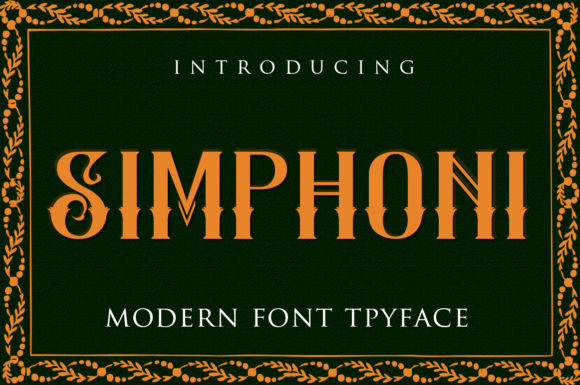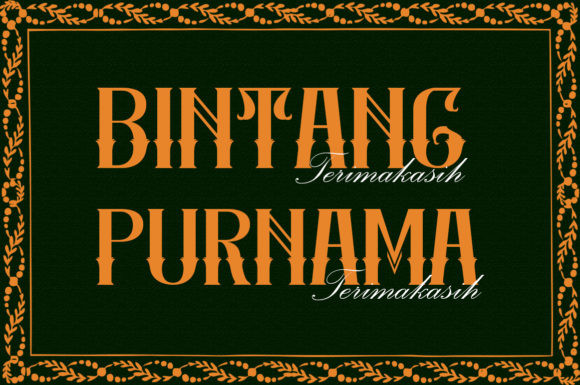
Simphoni Font
Simphoni is a great blackletter. It maintains its classy calligraphic influences while feeling contemporary and fresh. This versatility will appeal to a wide range of crafty ideas, from letterheads and titles, to stationery.